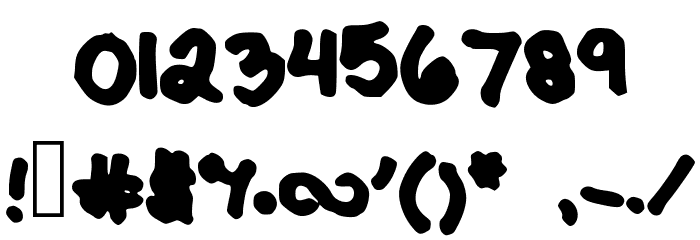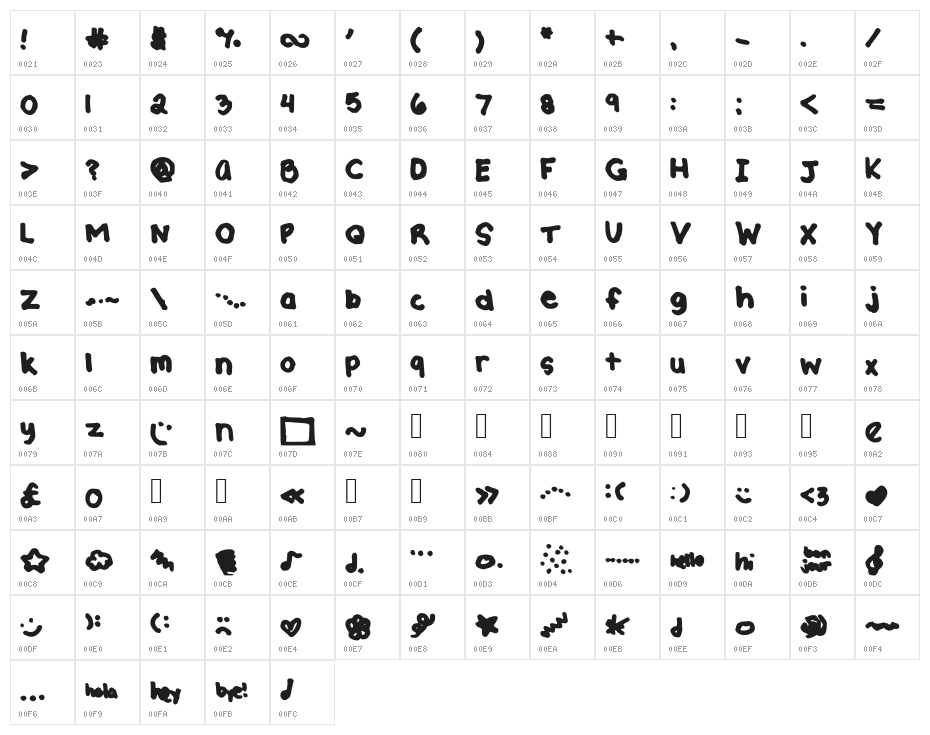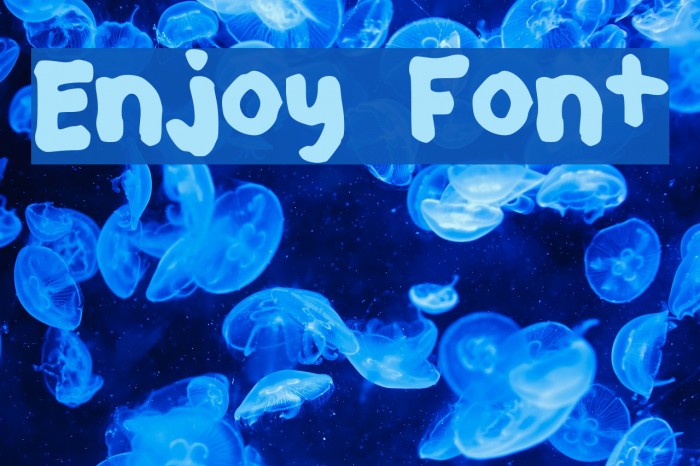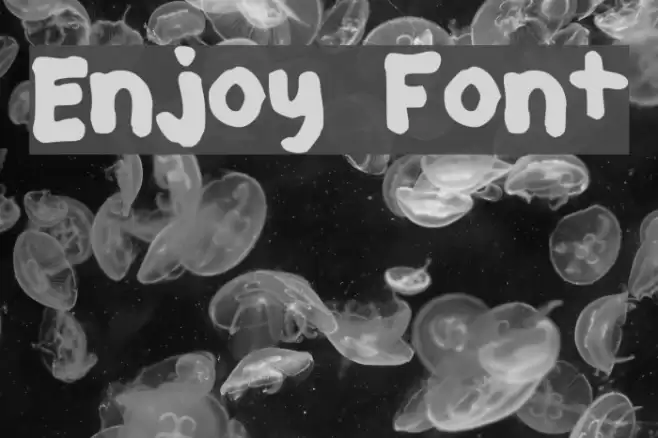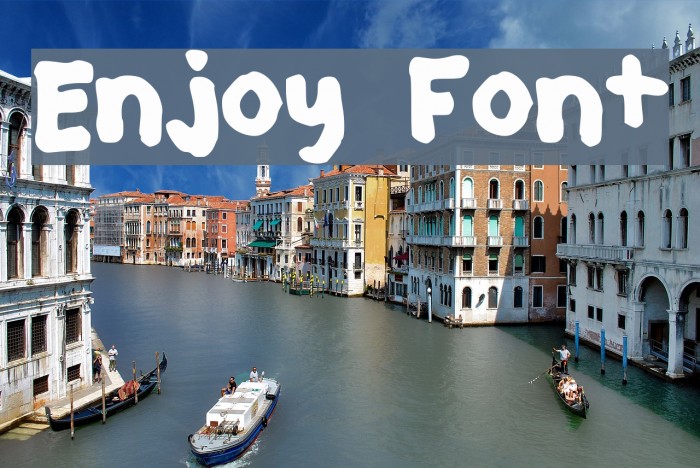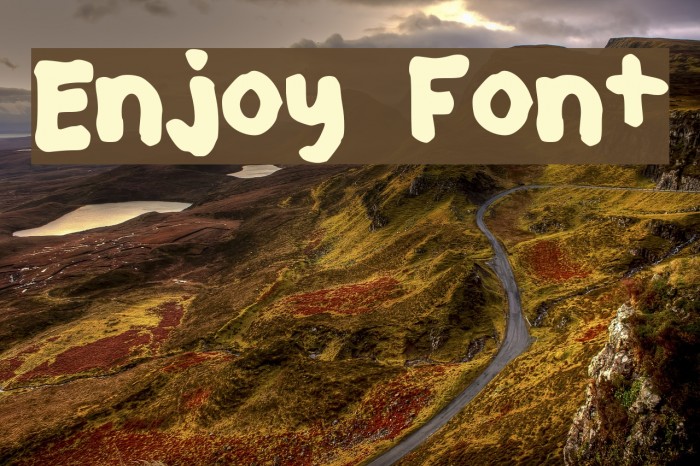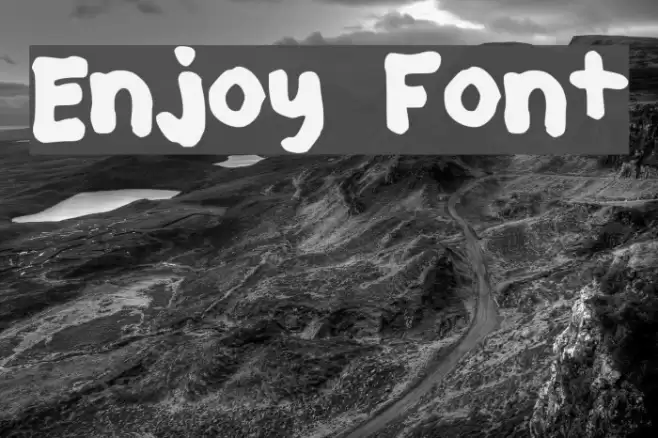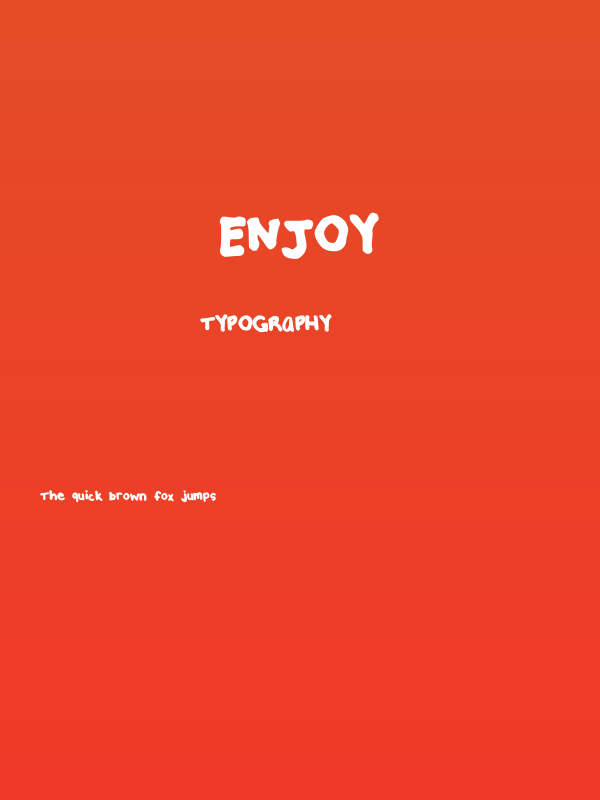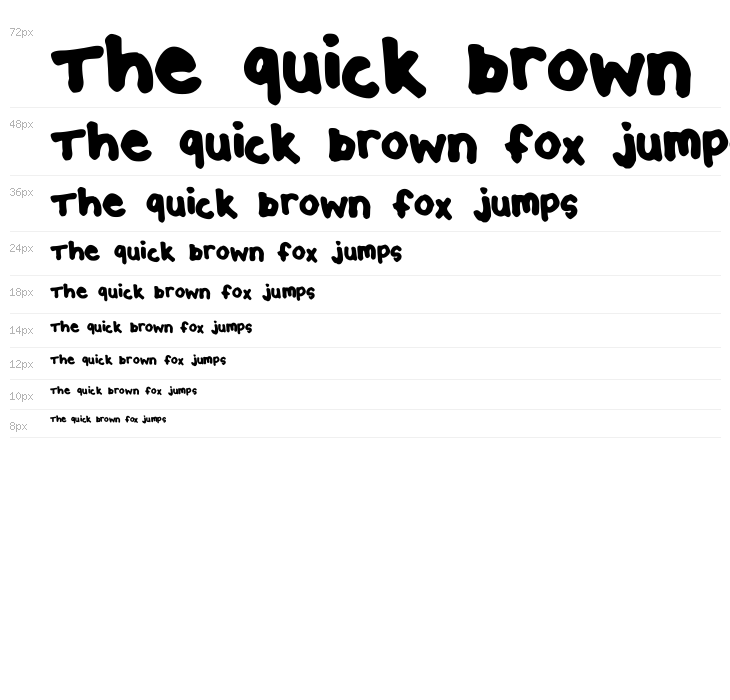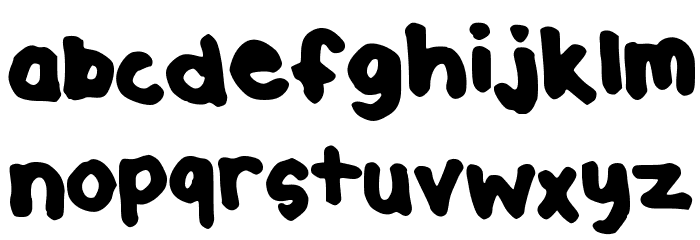
Enjoy Font
Enjoy Description
This playful and bold font features a hand-drawn style with thick, rounded strokes that give it a lively and informal appearance. The characters are slightly irregular, adding to the whimsical and friendly feel. The uppercase and lowercase letters maintain a consistent weight, while the numbers and special characters blend seamlessly with the overall design. The font's organic shapes and casual vibe make it ideal for projects that require a touch of fun and creativity. Its boldness ensures readability while the unique character shapes provide a distinctive look.
| Proposed Projects | Ideal for children's books, playful branding, casual invitations, and creative posters. |